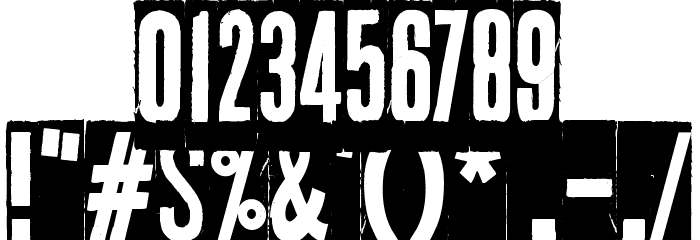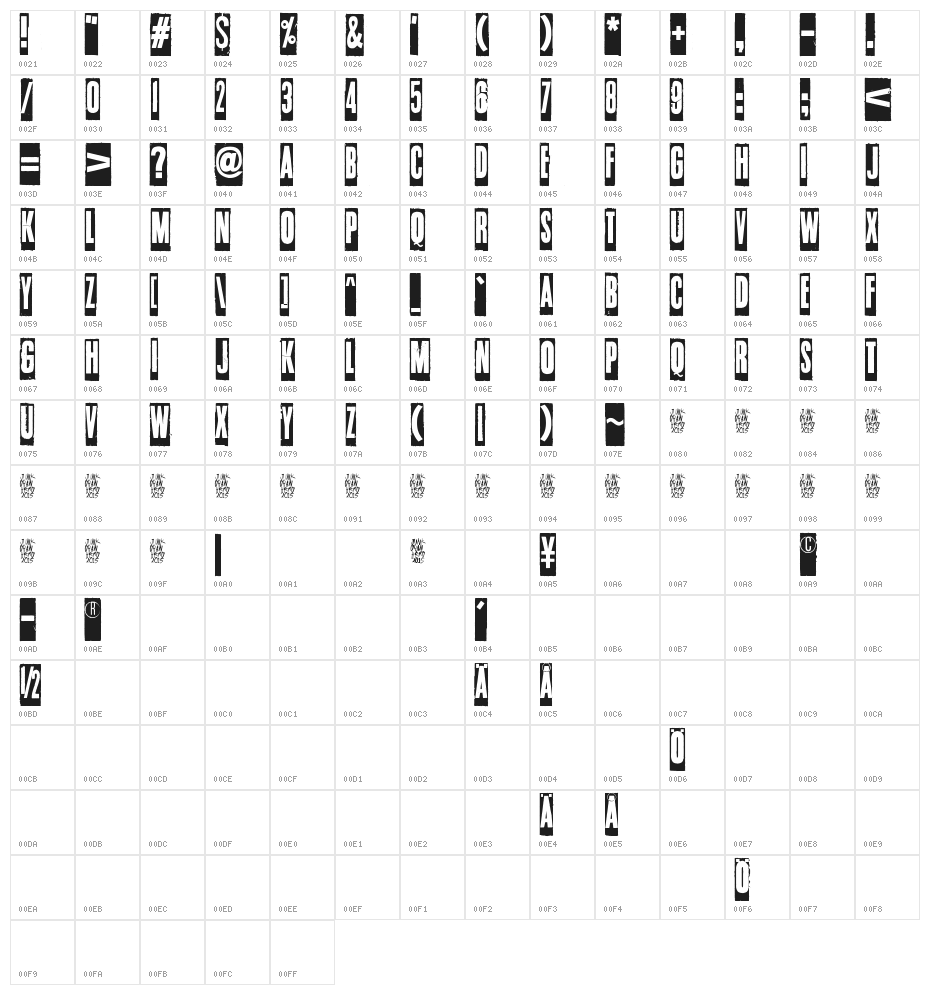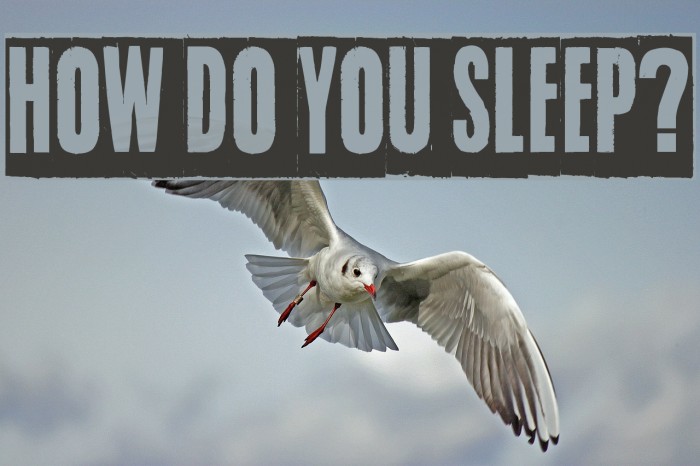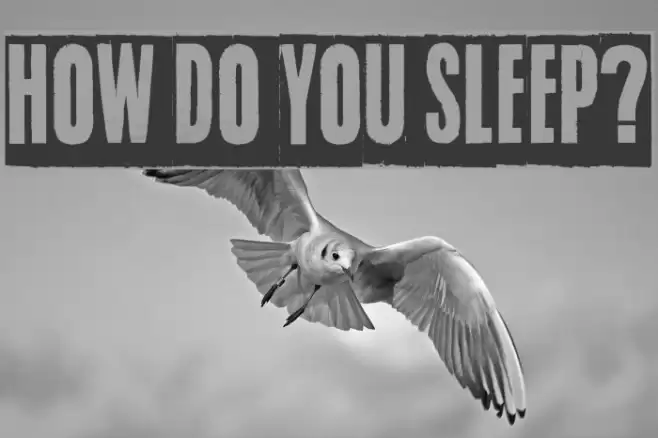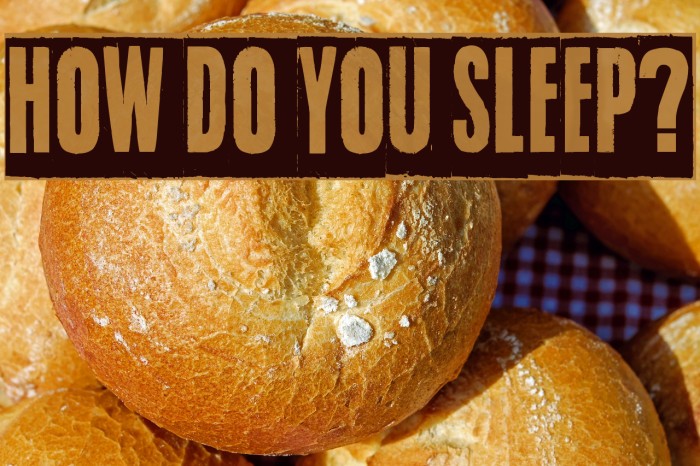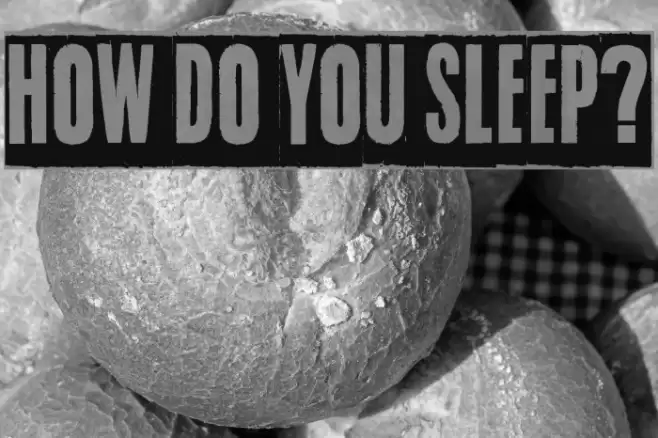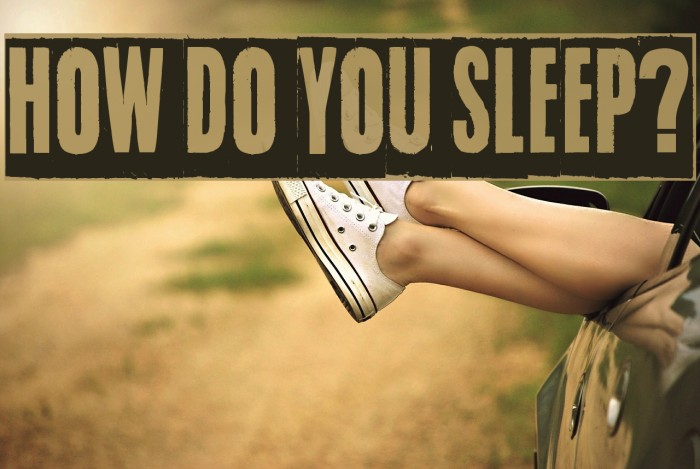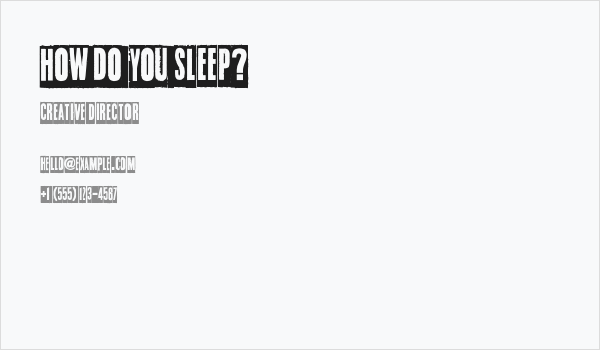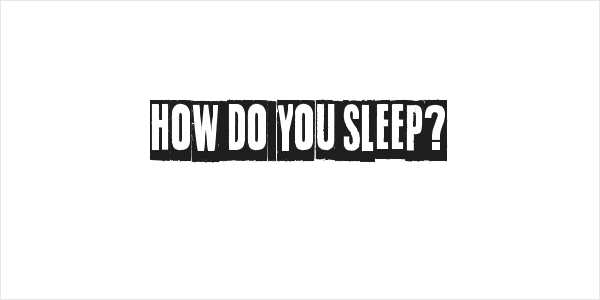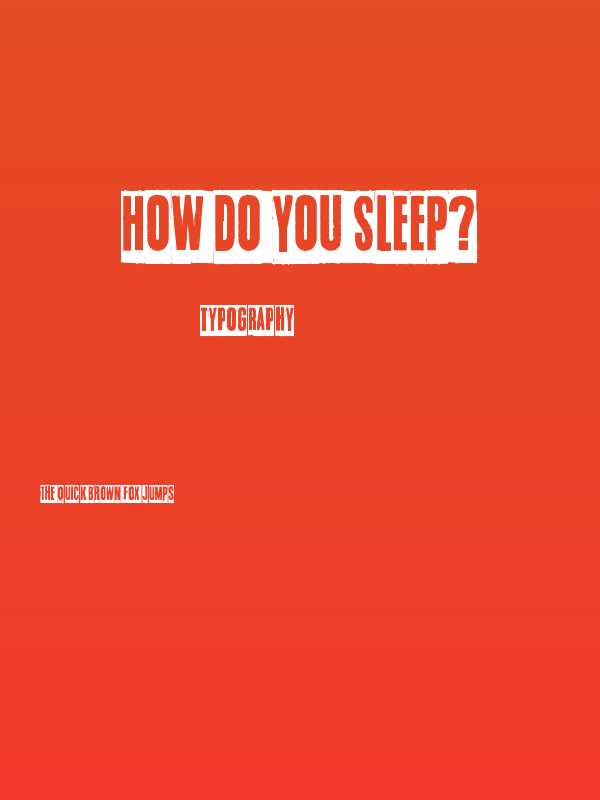
How do you sleep? Font
How do you sleep? Description
This font features a bold, distressed style with a gritty, textured appearance. The characters are uppercase and have a blocky, robust form that conveys strength and impact. The distressed texture gives it a vintage, worn-out look, reminiscent of old posters or industrial signage. The letters are tightly spaced, enhancing the compact and powerful feel of the font. The numbers and special characters maintain the same distressed aesthetic, ensuring consistency across all glyphs. This font is ideal for projects that require a bold statement or a rugged, edgy vibe.
| Proposed Projects | Ideal for posters, album covers, branding for edgy products, or any design needing a strong, vintage look. |